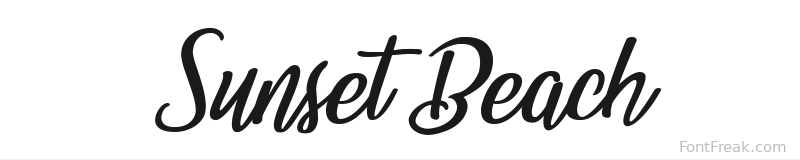
Sunset Beach
The Sunset Beach font, crafted by Billy Argel Fonts, is a whimsical, elegant script typeface that effortlessly captures the essence of a serene coastal sunset. This font falls into the script category, showcasing fluid, cursive letterforms that evoke a sense of relaxation and warmth. The strokes exhibit a moderate weight, balancing between boldness and delicacy, with graceful curves that dance across the page. Its well-considered spacing allows for optimal legibility, making it suitable for various applications.
Sunset Beach is perfect for wedding invitations, where its romantic flair can beautifully convey heartfelt sentiments. It also shines on beach-themed event posters, adding a touch of the tropics to any promotional material. Restaurant menus, particularly for seaside dining establishments, can benefit from this font’s inviting character, enticing guests with its charm. Additionally, content creators can use this font for social media graphics or blog headers, ensuring their visuals resonate with a laid-back, summery vibe.
Targeted toward graphic designers, small business owners, and content creators, the Sunset Beach font appeals to anyone looking to infuse their projects with a coastal aesthetic. Its versatility makes it an excellent choice for those in need of a fresh, inviting typeface that stands out from conventional options.
What sets the Sunset Beach font apart is its unique ability to blend elegance with a casual, beachy feel, making it a fantastic choice for a wide range of creative projects. Whether used in print or digital formats, this font captures the spirit of summer and relaxation, making it an essential addition to any designer's toolkit. Explore the possibilities with a Sunset Beach font free download and let your creativity flow.